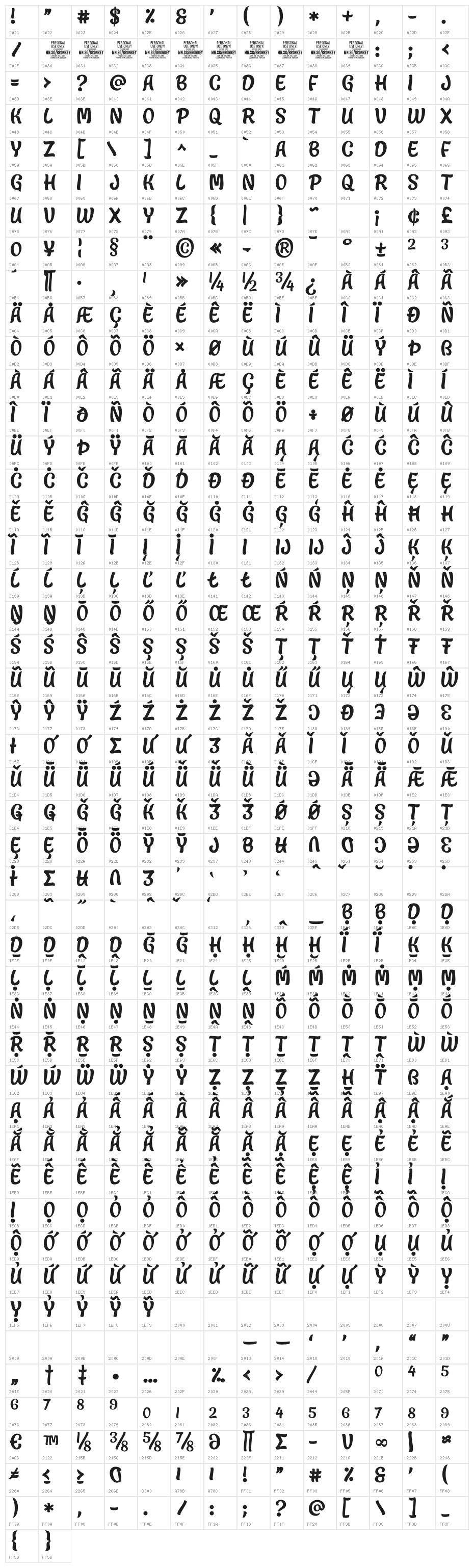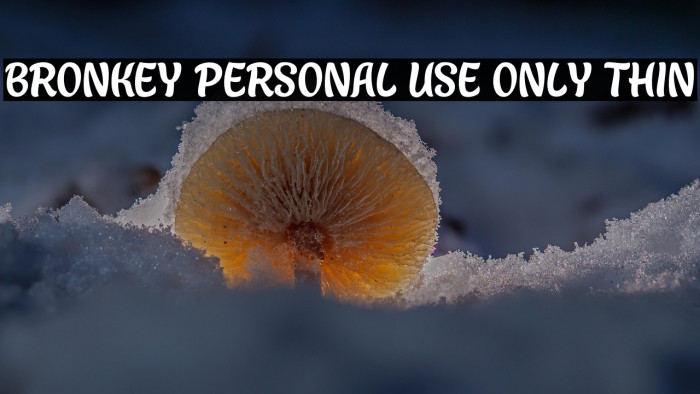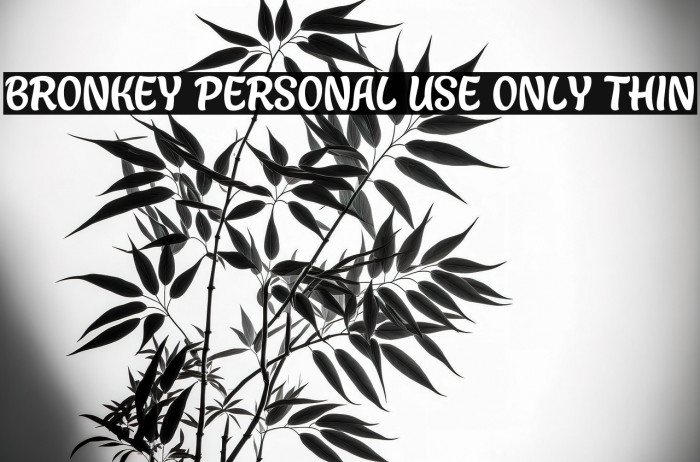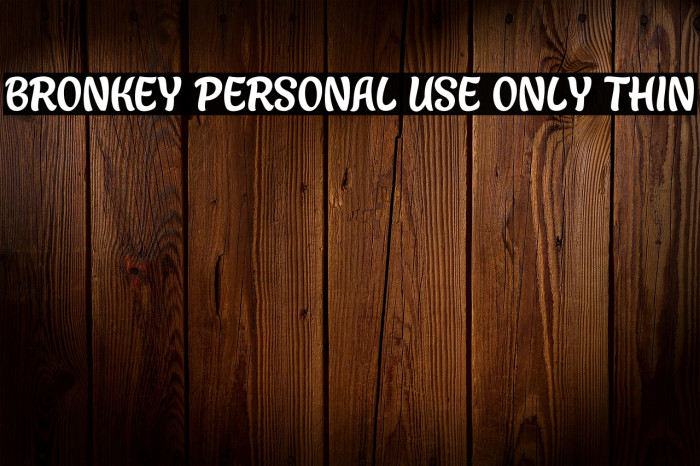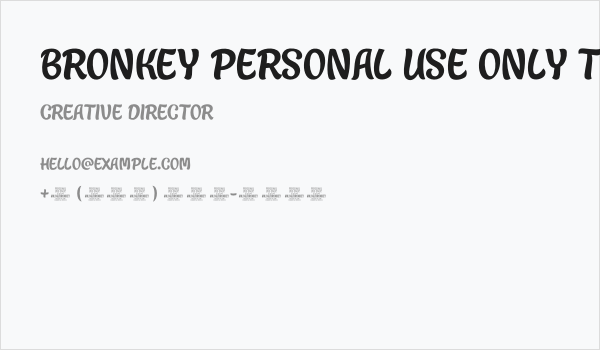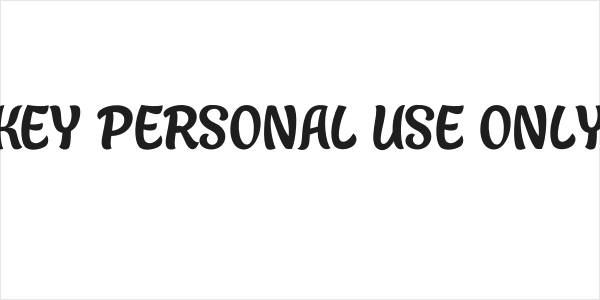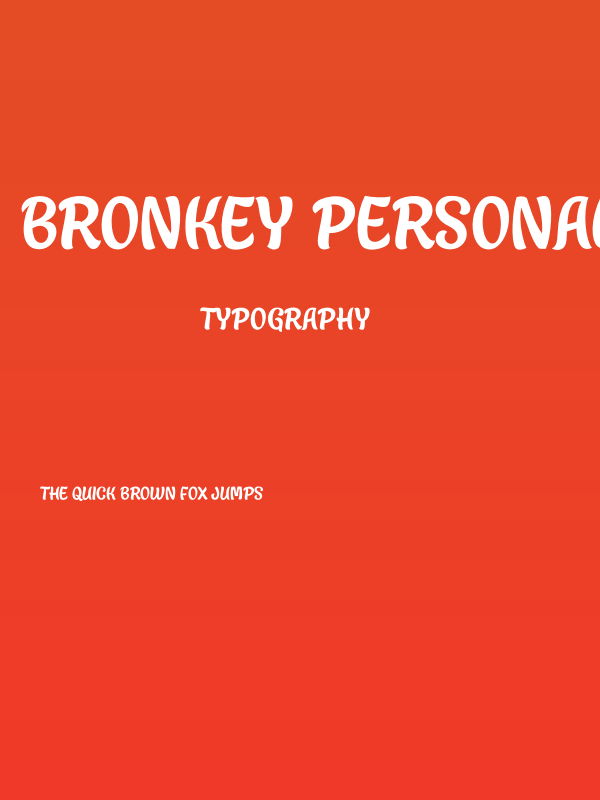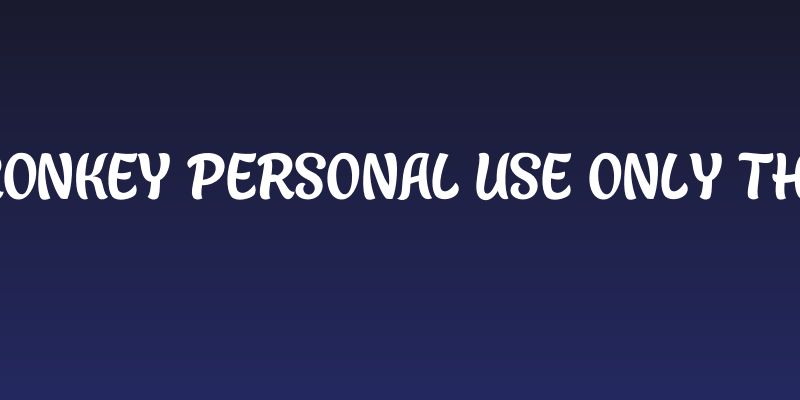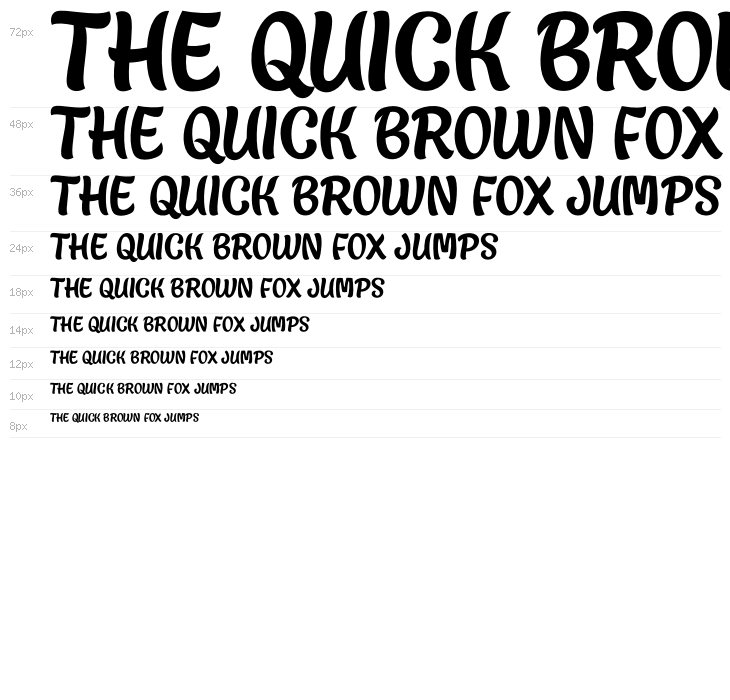
Bronkey PERSONAL USE ONLY Thin Font
Bronkey PERSONAL USE ONLY Thin Description
This font features a bold and playful script style with a handwritten feel. The characters are rounded and have a flowing, dynamic appearance, making them stand out with a sense of movement. The uppercase and lowercase letters maintain a consistent style, with a slight slant that adds to the casual and friendly vibe. The numbers and special characters are designed to match the overall aesthetic, ensuring a cohesive look across all text. This font is ideal for projects that require a touch of personality and flair, such as invitations, posters, and branding materials.